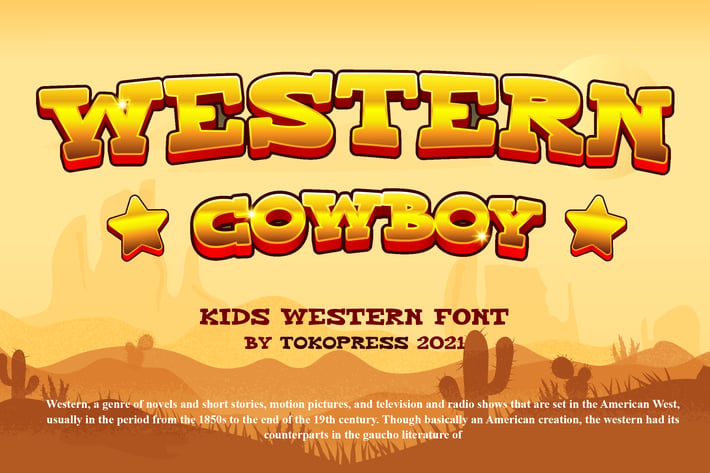
Western Cowboy - Gaming font
Western Cowboy - Gaming Font
Western display font for vintage posters and cowboy branding with bold curves and playful energy.
Western Cowboy rides in with a dramatic bouncy baseline, high contrast strokes, and chunky slab serifs—blending rugged Americana vibes with a cheerful, kid-friendly twist. The font’s expressive structure makes it both nostalgic and modern, perfect for recreating retro wild west posters or building branding that feels adventurous and fun. Its exaggerated proportions and rounded terminals give it an engaging look that’s both readable and highly stylized.
Ideal for designers aiming to craft standout titles in children’s books, movie posters, themed packaging, or event branding—Western Cowboy sets the scene for playful drama. Whether it’s for a cowboy-themed game UI, a retro-style food truck brand, or western-style album covers, this font delivers bold visual storytelling with personality. Its lighthearted undertone keeps things friendly while its dramatic form grabs attention on any display.
✅ Designed for Impact
- Eye-catching shapes with bold western aesthetics
- Rounded yet sturdy—easy to read on both print and digital
- Dramatic weight contrast and visual rhythm for hierarchy
✅ Versatile Use Cases
- Children’s books
- Vintage movie posters
- Rodeo event flyers
- Western-themed product packaging
- Game UIs or title screens